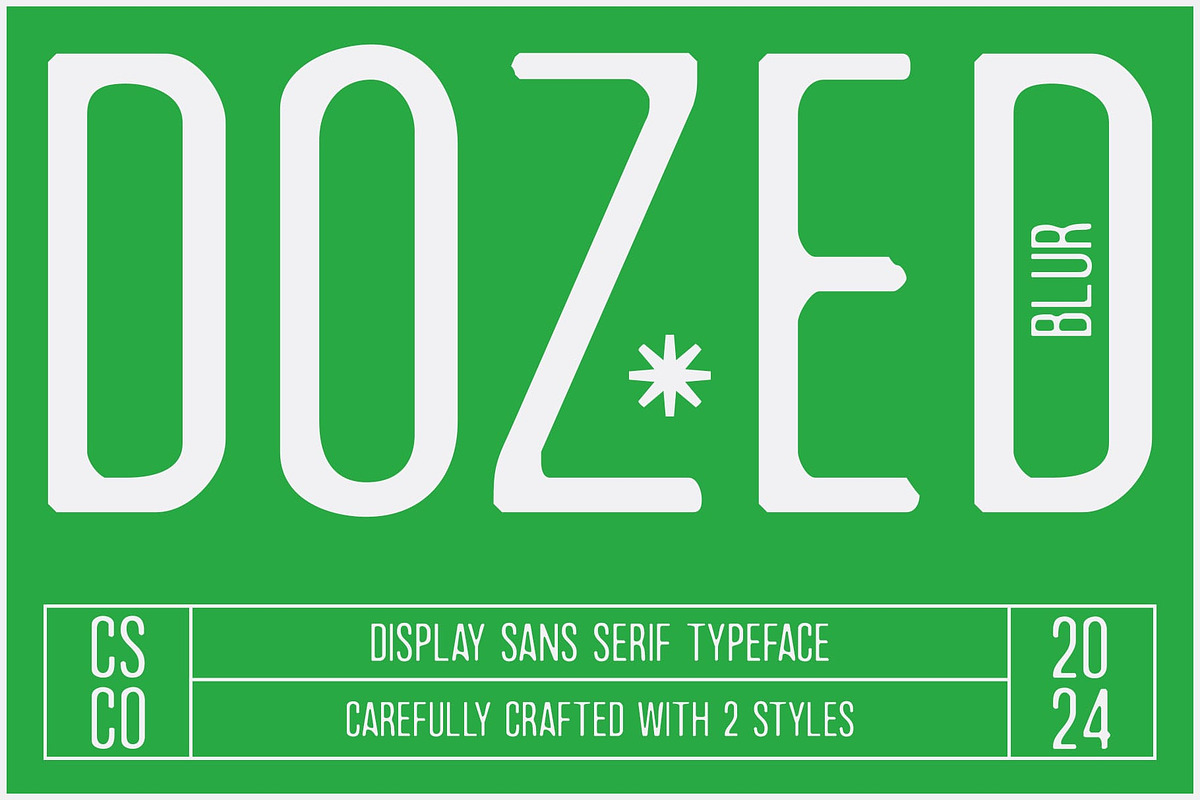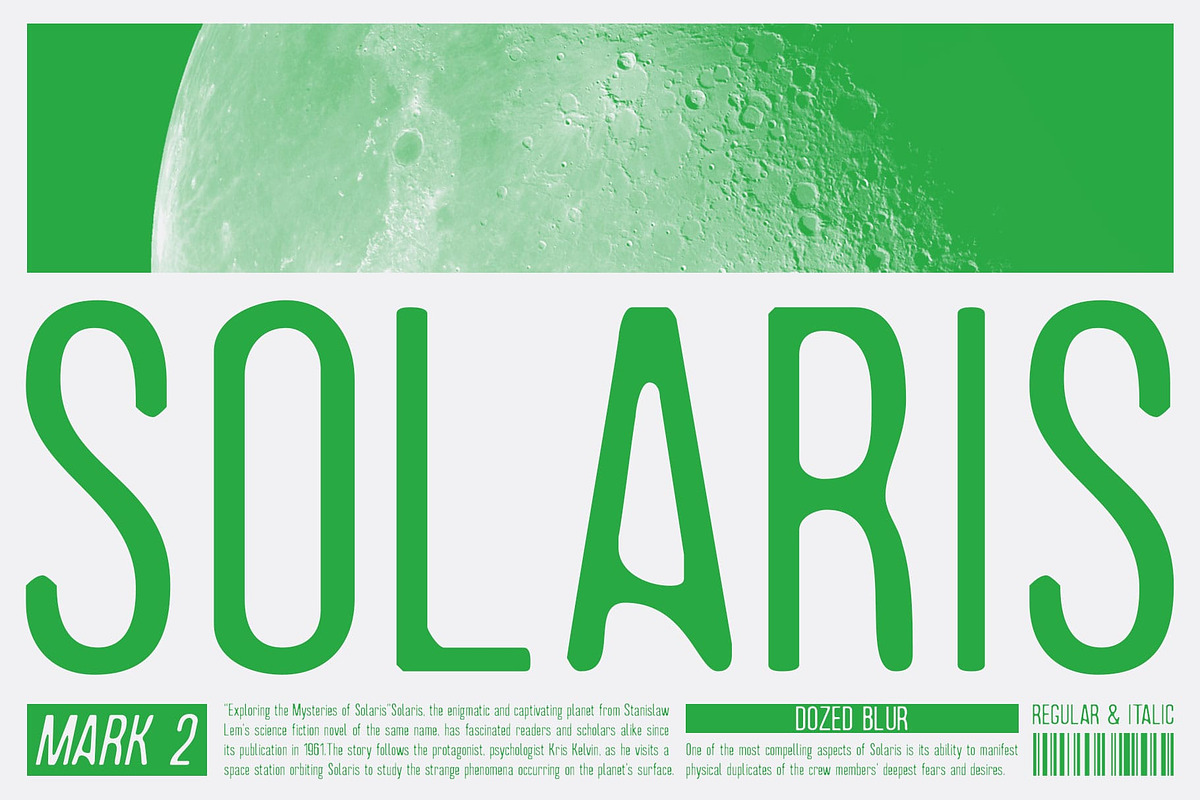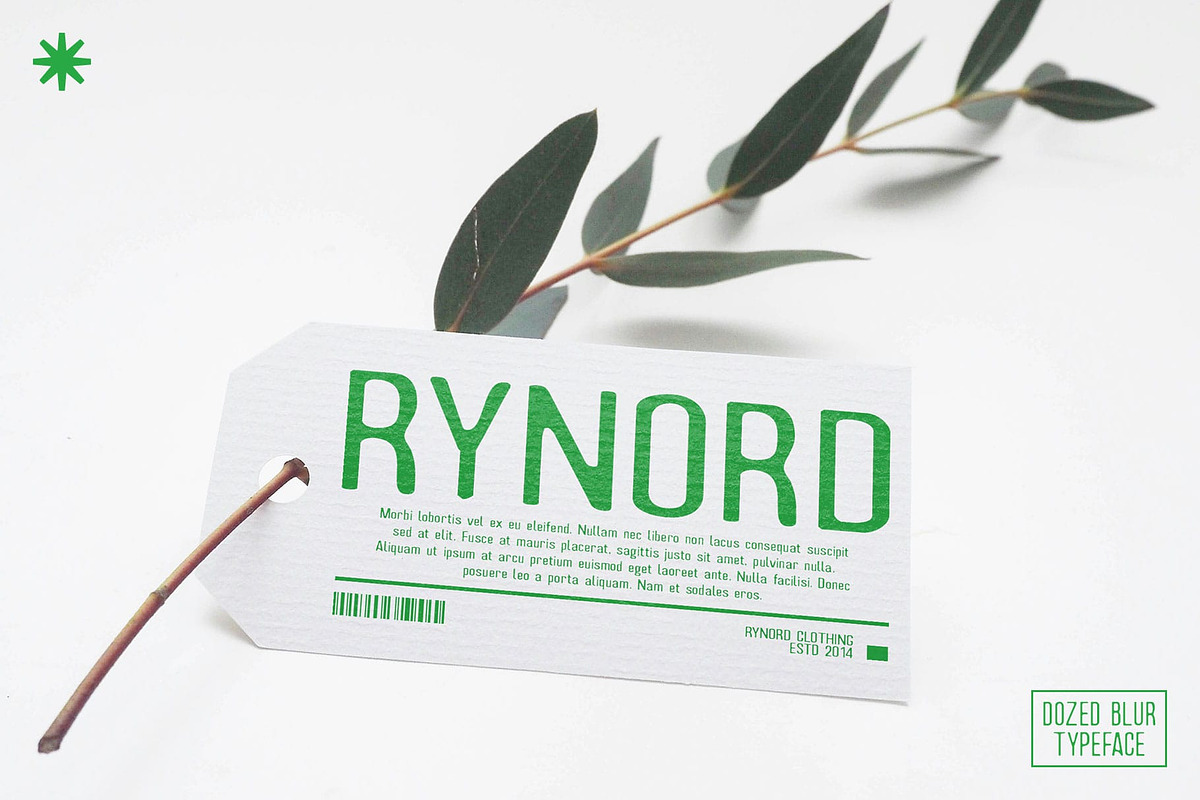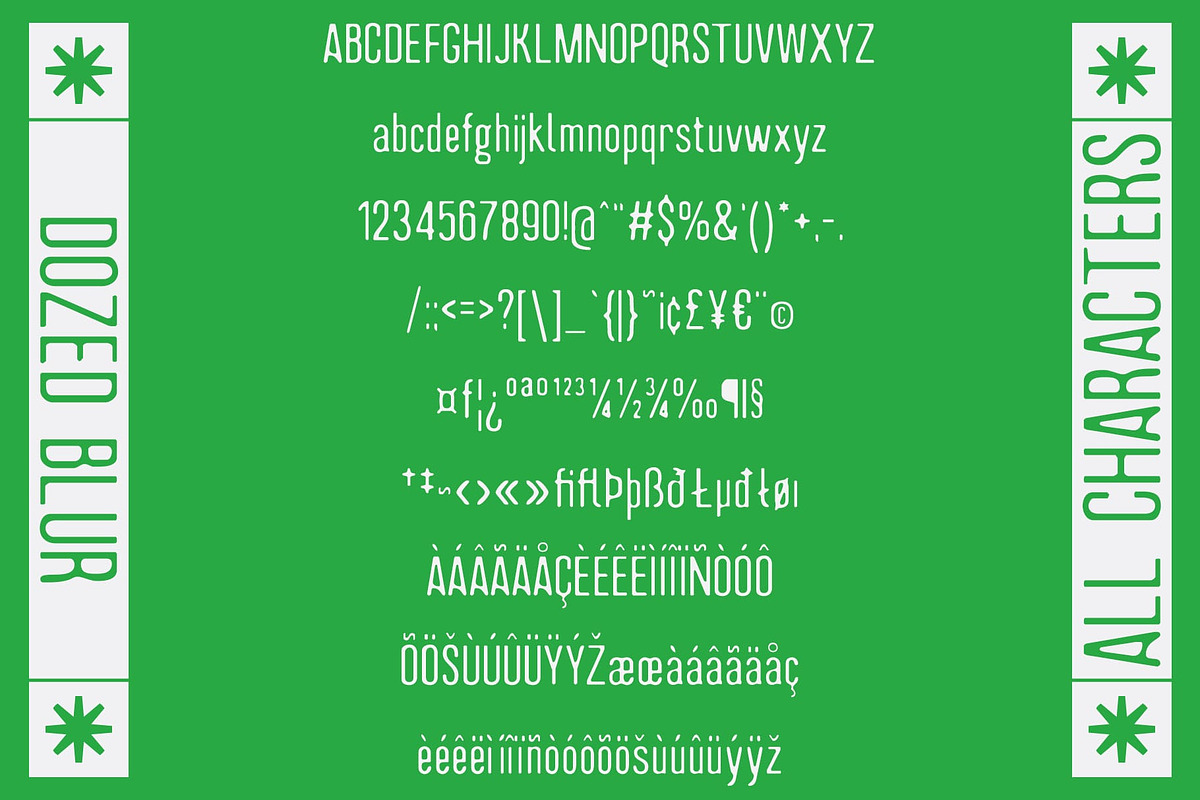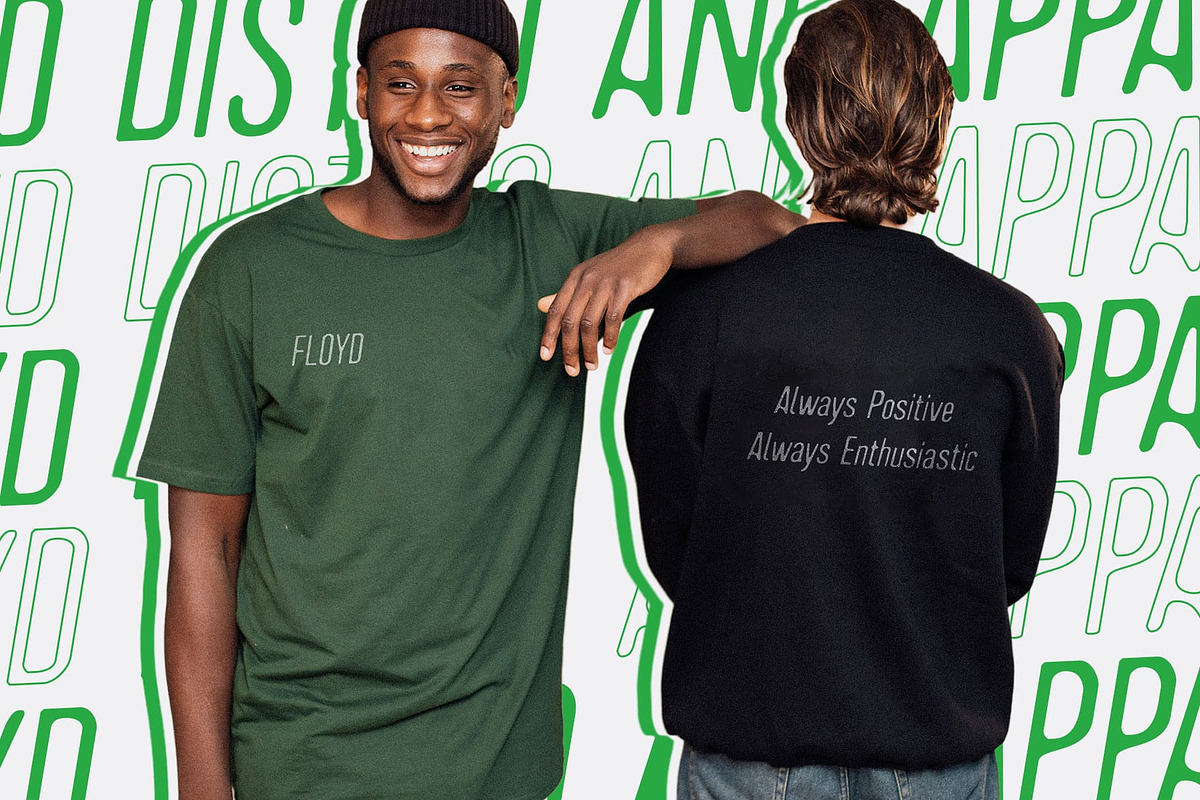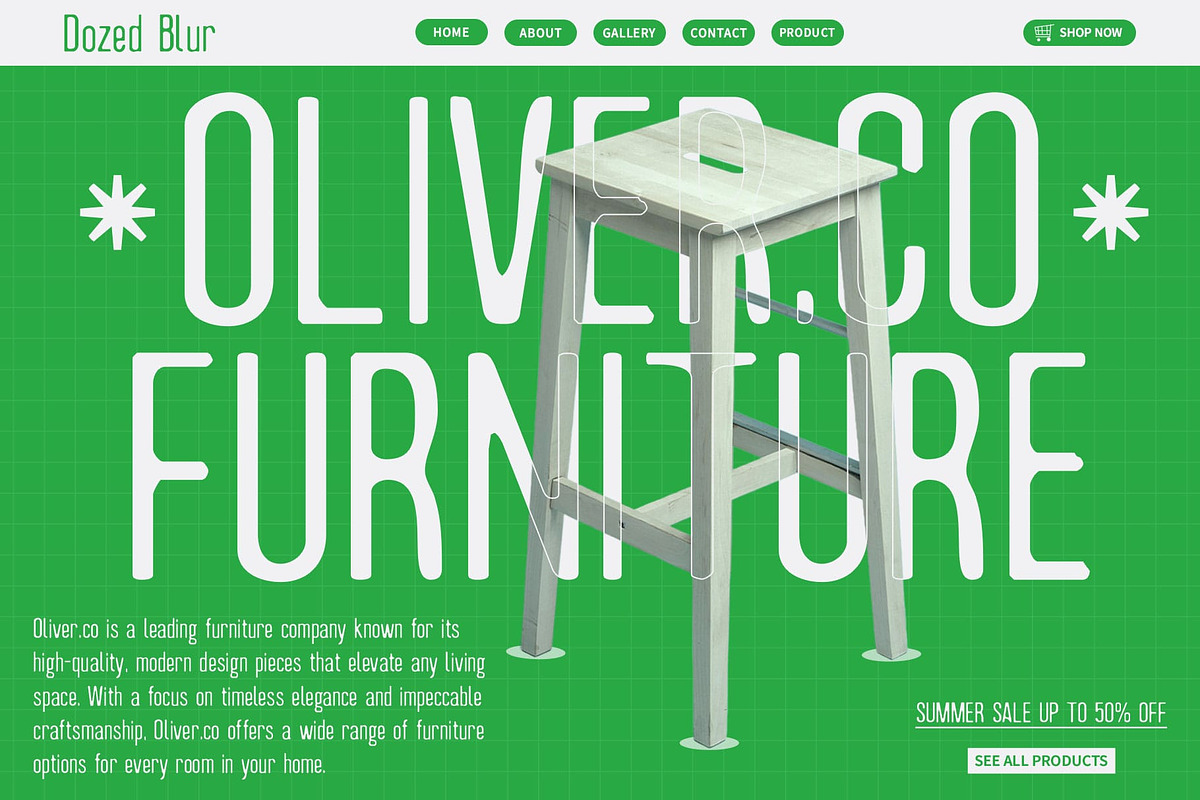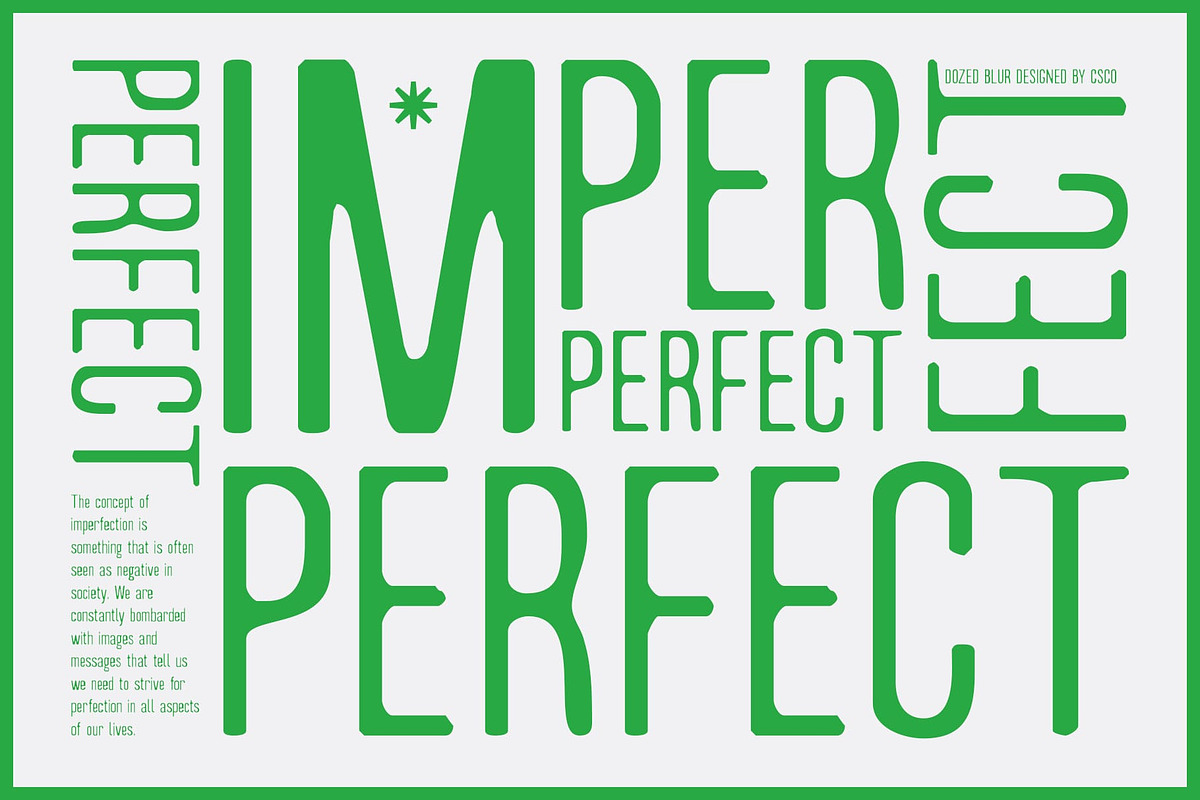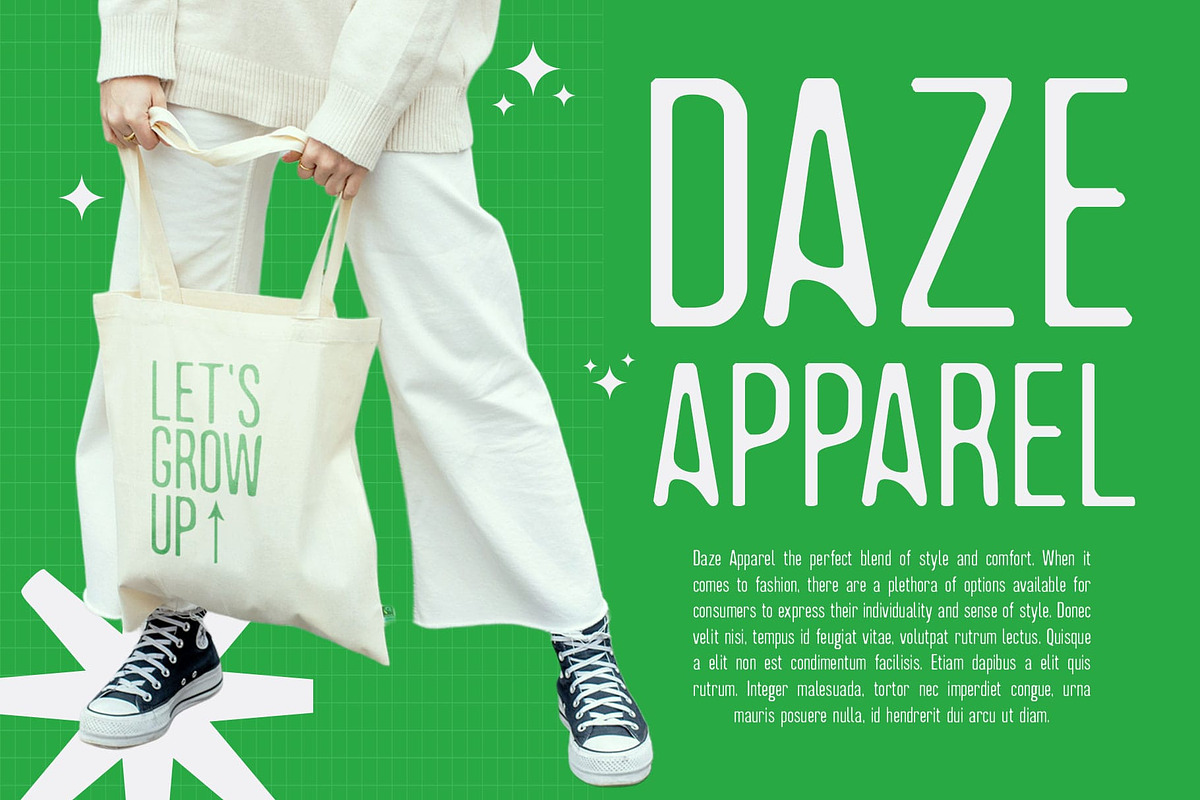
Dozed Blur
Dozed Blur: Condensed Sans-Serif Font with Artistic Blur Effect
Sleek Modernity with an Artistic Touch
Dozed Blur is a condensed sans-serif font that combines sleek modern design with a unique blur effect, creating an eye-catching and contemporary aesthetic. This font is perfect for projects aiming to blend a clean and modern look with a touch of artistic flair.
Condensed and Captivating Design
The condensed form of Dozed Blur ensures space efficiency and high readability while maintaining a strong visual presence. The blur effect introduces a layer of depth and intrigue, making your designs stand out with a distinctive and modern appeal.
Ideal for Various Design Applications
Perfect for branding, digital media, and editorial layouts, Dozed Blur enhances your projects with its unique style. Whether used for logos, website interfaces, or magazine spreads, this font adds a contemporary and sophisticated touch to your designs.
Elevate Your Visuals with Dozed Blur
Choose Dozed Blur to elevate your visual projects with a condensed sans-serif font that integrates a captivating blur effect. This font ensures your designs achieve a sleek, modern look while adding depth and visual intrigue, making them memorable and engaging.